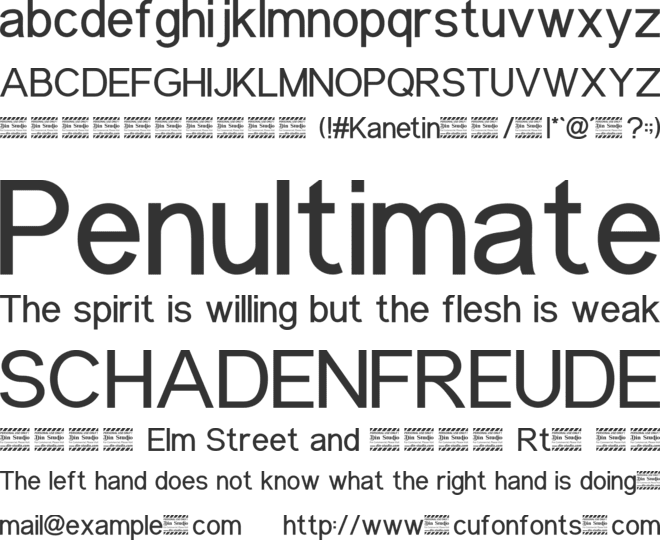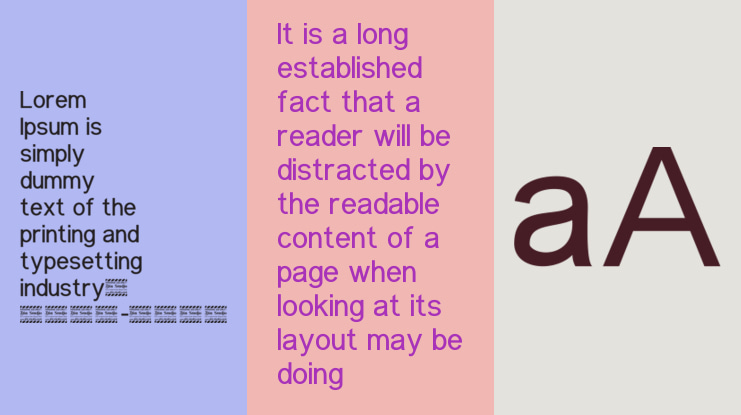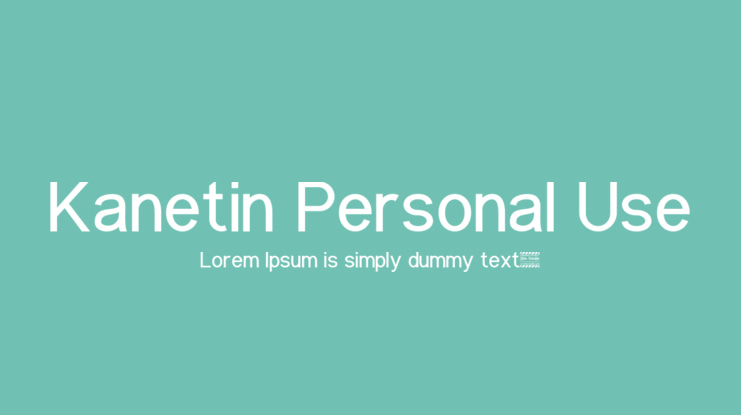
Kanetin is a beautiful sans serif font. Made for any professional project branding. It is perfect for printing, branding and quotes. Every letter has a unique and beautiful touch.